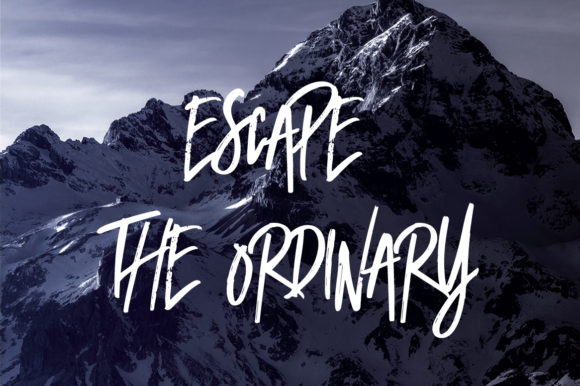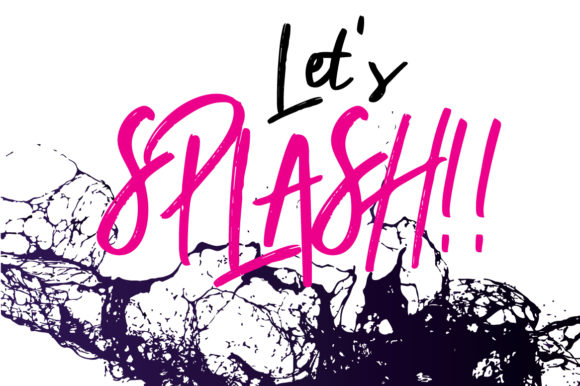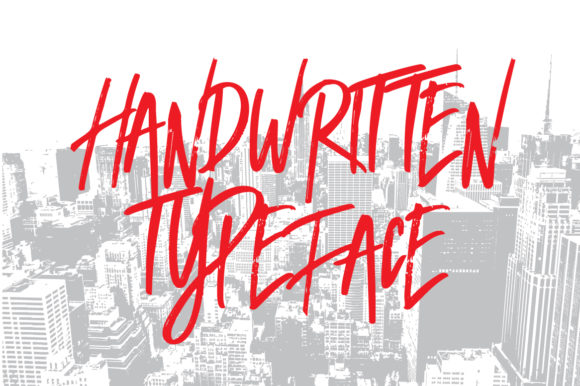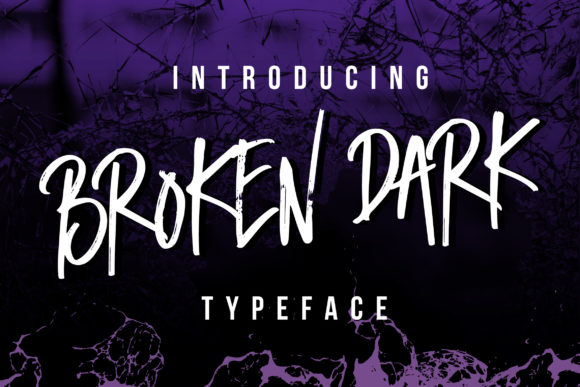
Unleash the Power of Broken Dark Font: Adding a Raw Edge to Your Design Projects
In the world of typography, fonts play a crucial role in conveying the tone and personality of a design project. For designers and crafters looking to add a touch of edginess and rawness to their work, the Broken Dark Font is an excellent choice. This twisted script font is designed to give your projects a rough, unfinished look that’s perfect for making a bold statement.
What is Broken Dark Font?
Broken Dark Font is a unique, script-type font that’s characterized by its rough, distressed texture. Unlike traditional fonts that are smooth and polished, Broken Dark Font has a rugged, handmade quality that gives it a distinctive edge. This font is perfect for designers who want to add a touch of grit and realism to their work, or for crafters who want to create handmade-style projects with a raw, unpolished feel.
Key Features of Broken Dark Font
• Twisted Script Design: Broken Dark Font features a twisted script design that’s perfect for creating eye-catching headlines and titles.
• Rough, Distressed Texture: The font’s rough, distressed texture gives it a raw, unfinished look that’s perfect for adding a touch of edginess to your designs.
• Handmade Quality: Broken Dark Font has a handmade quality that makes it perfect for crafters and designers who want to create unique, one-of-a-kind projects.
• Highly Versatile: This font is highly versatile and can be used for a wide range of design projects, from posters and flyers to logos and branding materials.
Uses for Broken Dark Font
Broken Dark Font is a highly versatile font that can be used for a wide range of design projects. Here are some ideas for using this font:
• Posters and Flyers: Use Broken Dark Font to create eye-catching posters and flyers that grab attention and make a bold statement.
• Logos and Branding Materials: This font is perfect for creating logos and branding materials that need to convey a sense of edginess and raw power.
• Social Media Graphics: Use Broken Dark Font to create social media graphics that stand out from the crowd and add a touch of personality to your online presence.
• Handmade Crafts: This font is perfect for crafters who want to create handmade-style projects with a raw, unpolished feel.
Tips for Using Broken Dark Font
Here are some tips for using Broken Dark Font effectively:
• Use it Sparingly: Because Broken Dark Font is a bold, attention-grabbing font, it’s best to use it sparingly. Use it for headlines and titles, and pair it with a simpler font for body text.
• Experiment with Colors: This font looks great in a wide range of colors, from bold and bright to dark and muted. Experiment with different colors to find the look that works best for your project.
• Pair it with Other Fonts: Broken Dark Font can be paired with a wide range of other fonts to create a unique and eye-catching look. Experiment with different font combinations to find the one that works best for your project.
Broken Dark Font is a powerful, attention-grabbing font that’s perfect for designers and crafters who want to add a touch of edginess and rawness to their work. With its twisted script design, rough distressed texture, and handmade quality, this font is sure to make a bold statement. Whether you’re creating posters and flyers, logos and branding materials, or handmade crafts, Broken Dark Font is an excellent choice.